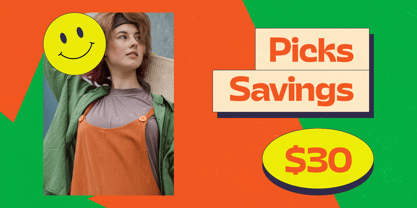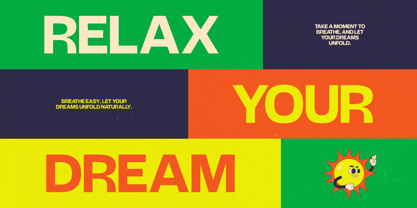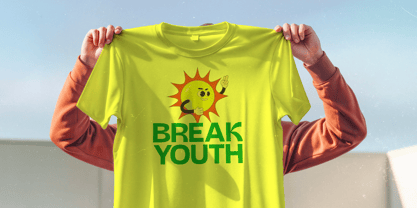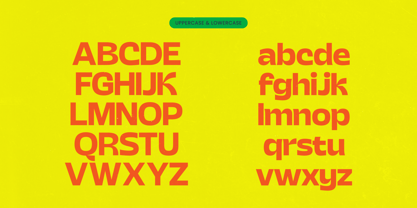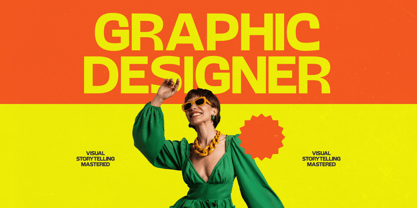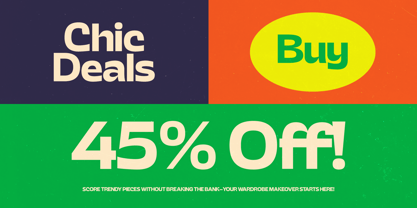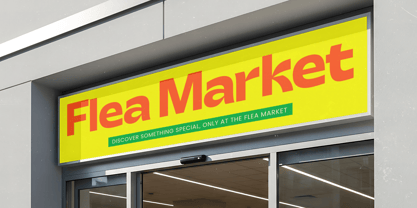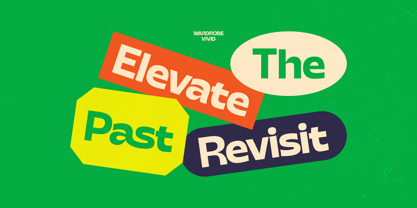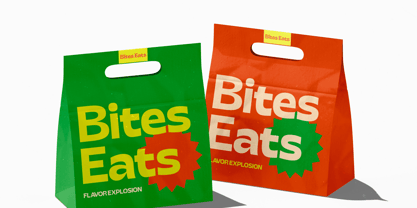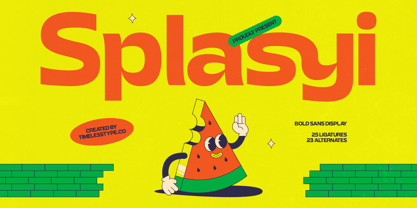
Splasyi
The Splasyi Font Family was designed by Heru Utama Putra and published by Timelesstype Studio. Splasyi contains 2 styles and family package options. More about this family
Splasyi – Bold Sans Display Font Splasyi is a bold sans display font designed with playful curves and strong modern shapes. The letterforms feature smooth rounded structures and expressive forms that create a lively and energetic visual style. This typeface combines contemporary sans-serif design with a fun and friendly personality. Its bold proportions and smooth curves make it highly effective for display typography, helping headlines stand out with strong visual impact. Splasyi includes ligatures and alternate characters that allow designers to build unique lettering compositions. These stylistic options add flexibility when creating logos, branding elements, and eye-catching titles. The playful nature of the font makes it perfect for creative projects that require bold typography with a modern and cheerful vibe.